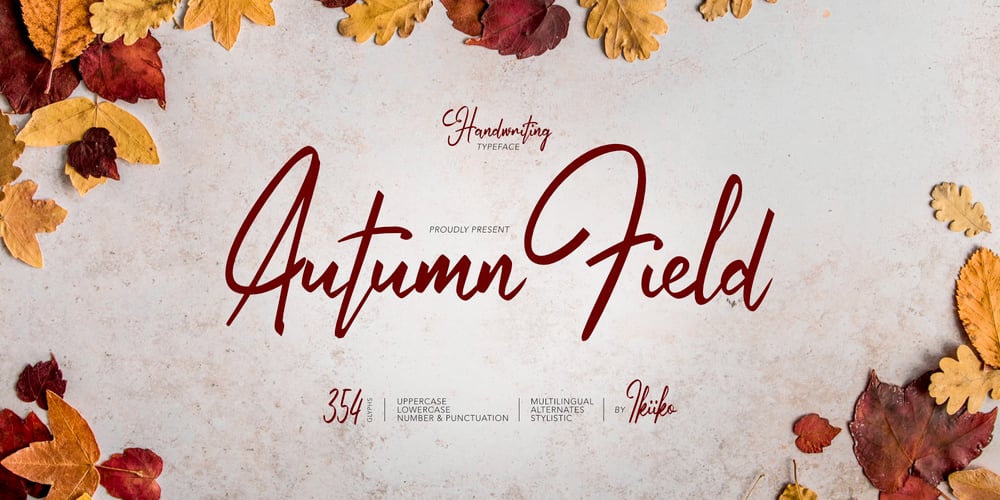
Autumn Field Font Family was designed by Wahyu Eka Prasetya, Andhika Pradana and published by IKIIKOWRK. Autumn Field contains 1 styles and family package options. Introducing Autumn Field – Handwriting Type created by ikiiko.Autumn Field is rough and exotic handwriting style with unique line curves. Autumn Field is also combine with a ton of stylistic to choose. This typeface is perfect for an elegant logo, poster font, magazine layout, headline font, header page, beauty product, packaging product, quotes, or simply as a stylish text overlay to any background image.What’s included? Uppercase & Lowercase Number & Punctuation Alternates & Stylistic Multilingual Support Enjoy our font and if you have any questions, you can contact us by email : ikiikowrk@gmail.com